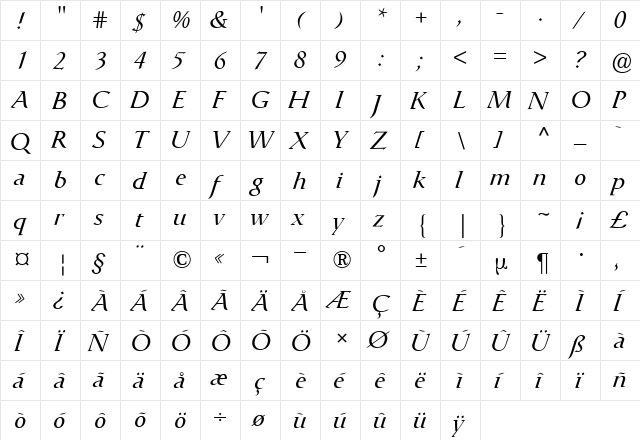
CatullBQ Italic Font Preview
CatullBQ Italic
CatullBQ Italic Font Details
Design Context for CatullBQ Typeface
CatullBQ is a composed and adaptable typeface that performs quietly and consistently across a wide range of design contexts. Its italic angle brings a sense of urgency and motion to the letterforms.
Pro Tip: Try CatullBQ for annotation and caption copy alongside an upright companion — the contrast in angle creates a dynamic but ordered typographic system.